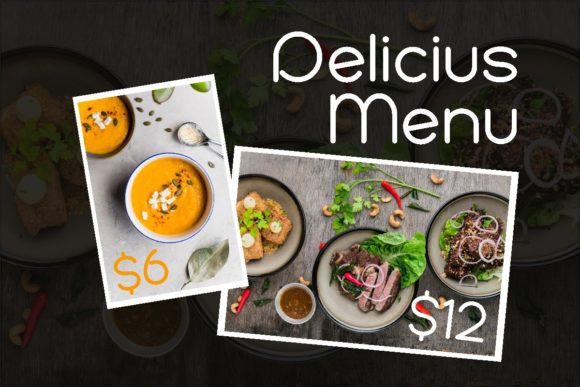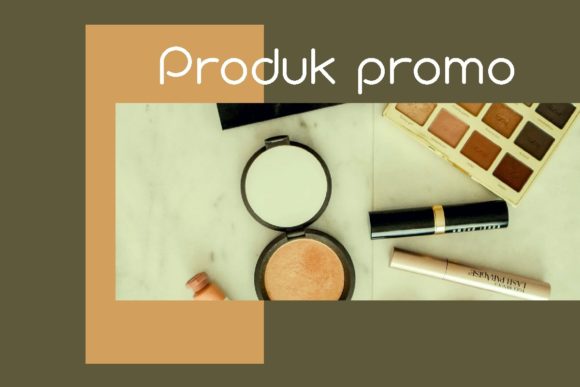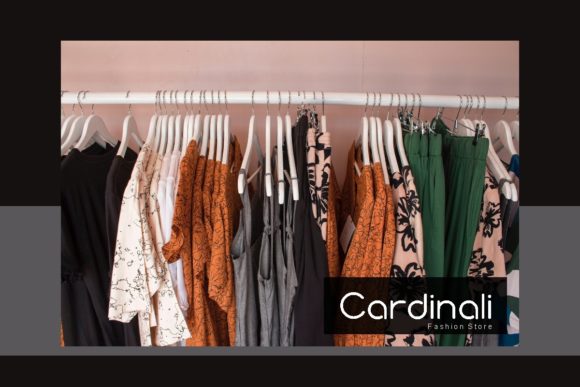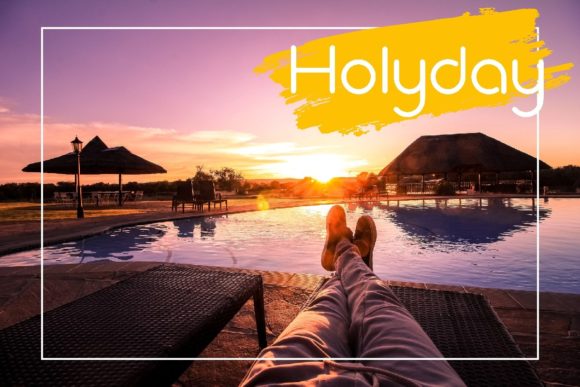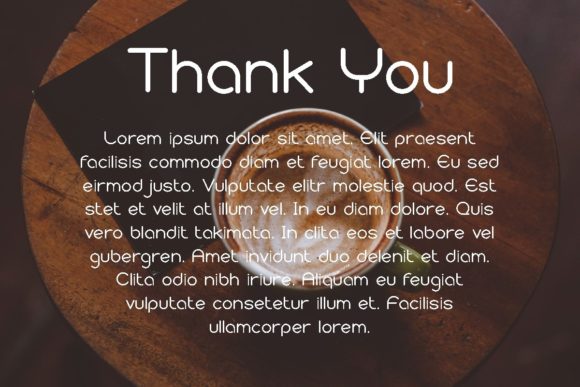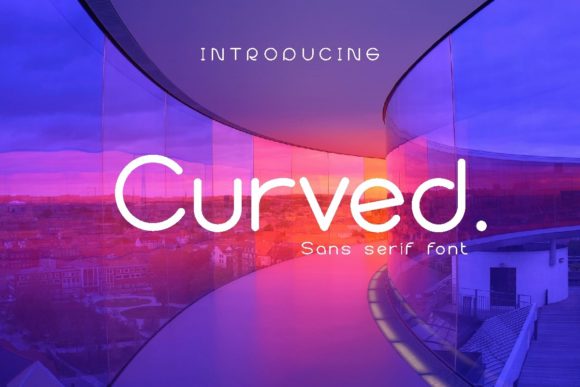
Curved Font: Elevate Your Designs with a Minimal and Neat Sans Serif Font
Are you tired of using the same old fonts in your designs? Look no further than Curved, a minimal and neat sans serif font that’s perfect for adding a touch of elegance to your creative projects. With its clean lines and simple aesthetic, Curved is a versatile font that can easily be matched to an incredibly large set of projects. In this article, we’ll explore the features and benefits of Curved, and show you how to make the most of this amazing font.
What is Curved Font?
Curved is a sans serif font that’s characterized by its minimalist design and smooth curves. The font features clean lines, simple shapes, and a consistent width, making it perfect for use in a variety of design applications, from digital media to print materials. Whether you’re designing a logo, brochure, or website, Curved is a great choice for adding a touch of sophistication and style to your work.
Key Features of Curved Font
So, what makes Curved such a great font? Here are some of its key features:
- Minimalist design: Curved’s simple and clean design makes it perfect for use in a variety of design applications.
- Smooth curves: The font’s smooth curves add a touch of elegance and sophistication to your designs.
- Consistent width: The consistent width of the font makes it easy to read and use in a variety of contexts.
- Versatile: Curved is a versatile font that can be used in a wide range of design applications, from digital media to print materials.
Benefits of Using Curved Font
So, why should you choose Curved for your design projects? Here are some of the benefits of using this amazing font:
- Elegance and sophistication: Curved adds a touch of elegance and sophistication to your designs, making them stand out from the crowd.
- Readability: The font’s clean lines and consistent width make it easy to read, even at small sizes.
- Flexibility: Curved is a versatile font that can be used in a wide range of design applications, from digital media to print materials.
- Uniqueness: With its smooth curves and minimalist design, Curved is a unique font that will help your designs stand out from the crowd.
How to Use Curved Font in Your Designs
So, how can you use Curved in your designs? Here are some tips:
- Pair it with other fonts: Curved pairs well with a variety of other fonts, so don’t be afraid to experiment with different combinations.
- Use it for headings and titles: The font’s elegant design makes it perfect for use in headings and titles.
- Experiment with different colors: Curved looks great in a variety of colors, so don’t be afraid to experiment with different color schemes.
- Use it in digital and print materials: Curved is a versatile font that can be used in a wide range of design applications, from digital media to print materials.
In conclusion, Curved is a minimal and neat sans serif font that’s perfect for adding a touch of elegance and sophistication to your design projects. With its clean lines, smooth curves, and consistent width, Curved is a versatile font that can easily be matched to an incredibly large set of projects. Whether you’re a designer, crafter, or simply someone who loves to create, Curved is a great choice for anyone looking to elevate their designs and make them stand out from the crowd.